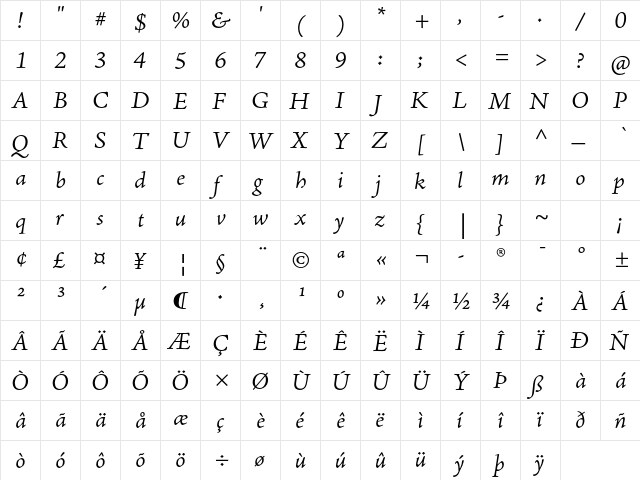
Adobe Jenson Pro Light Italic Caption
| Designer | Robert Slimbach |
Design Context for Adobe Jenson Pro Typeface
Adobe Jenson Pro offers clean, dependable letterforms without strong stylistic allegiance, making it a practical choice for designers who need flexibility. The dynamic lean of this cut emphasises speed and emphasis in any layout. The delicate stroke weight brings airiness and refinement to layouts.
Pro Tip: Try Adobe Jenson Pro for annotation and caption copy alongside an upright companion — the contrast in angle creates a dynamic but ordered typographic system.